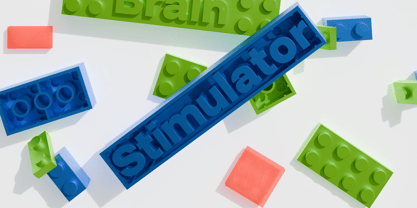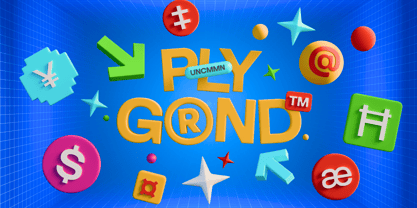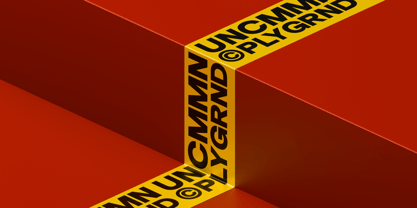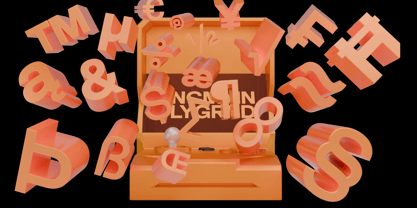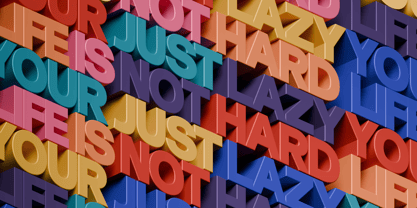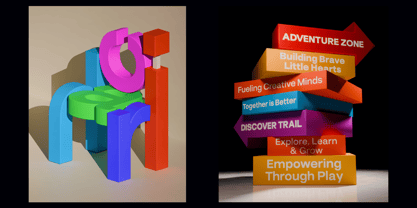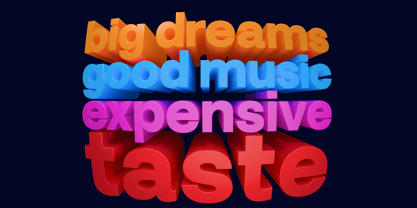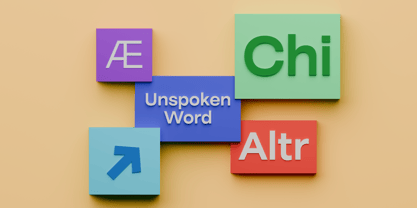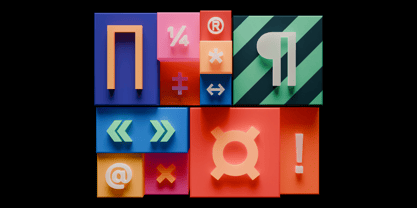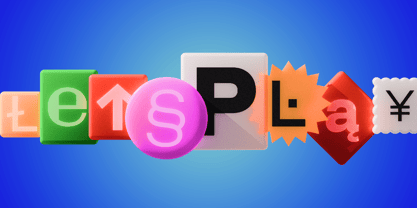
UNCMMN Plygrnd
by Uncmmn Lab
The UNCMMN Plygrnd Font Family was designed by Wahyu Ichsan Fauzi and published by Uncmmn Lab. UNCMMN Plygrnd contains 7 styles and family package options.
UNCMMN PLYGRND is a playful sans serif typeface that celebrates experimentation and expressive form. With bold proportions, quirky curves, and unexpected details, PLYGRND captures the spirit of creativity and visual fun. Designed as a modular system with multiple styles, it invites designers to mix, match, and explore typographic possibilities. Whether used for eye-catching titles, expressive branding, or artistic layouts, PLYGRND offers a vibrant and unconventional voice—perfect for projects that embrace bold ideas and a nontraditional aesthetic.
UNCMMN Plygrnd